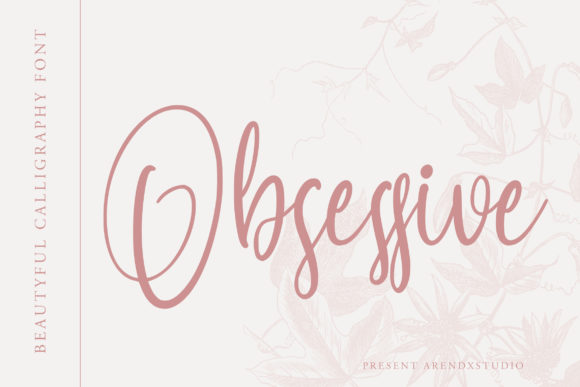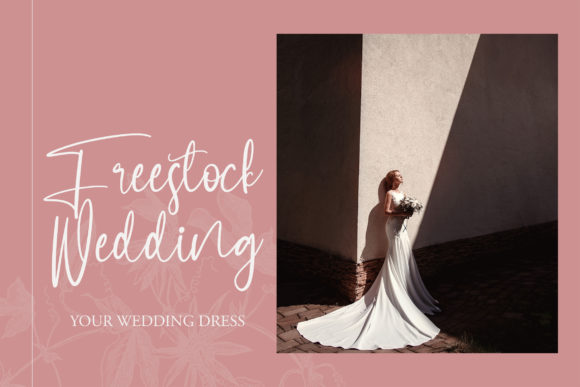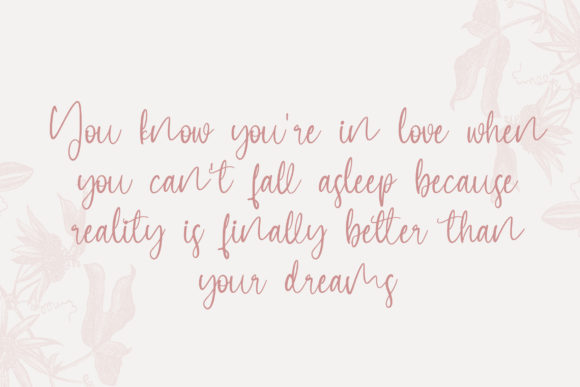
About Obsessive Font
Obsessive is an exquisite handwritten font, masterfully designed to become a true favorite. It maintains its classy calligraphic influences while feeling contemporary and fresh. Fall in love with it and bring your projects to the highest levels!